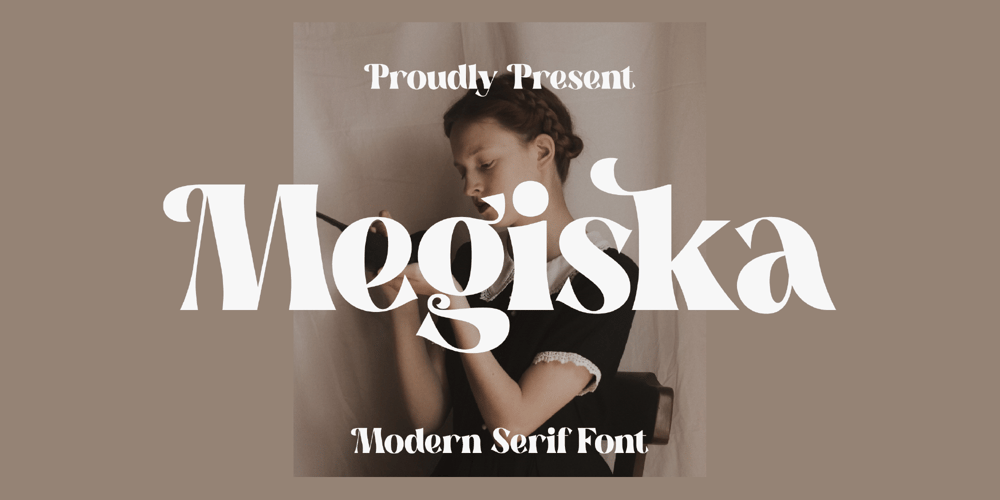
Megiska
Megiska font
Megiska Font Family was designed by Heru Utama Putra and published by Letterena Studios. Megiska contains 2 styles and family package options. Megiska is a modern, trendy and chic serif font. It is PUA encoded which means you can access all glyphs and swashes with ease!Add it confidently to your favorite creations and let yourself be amazed by the outcome generated.